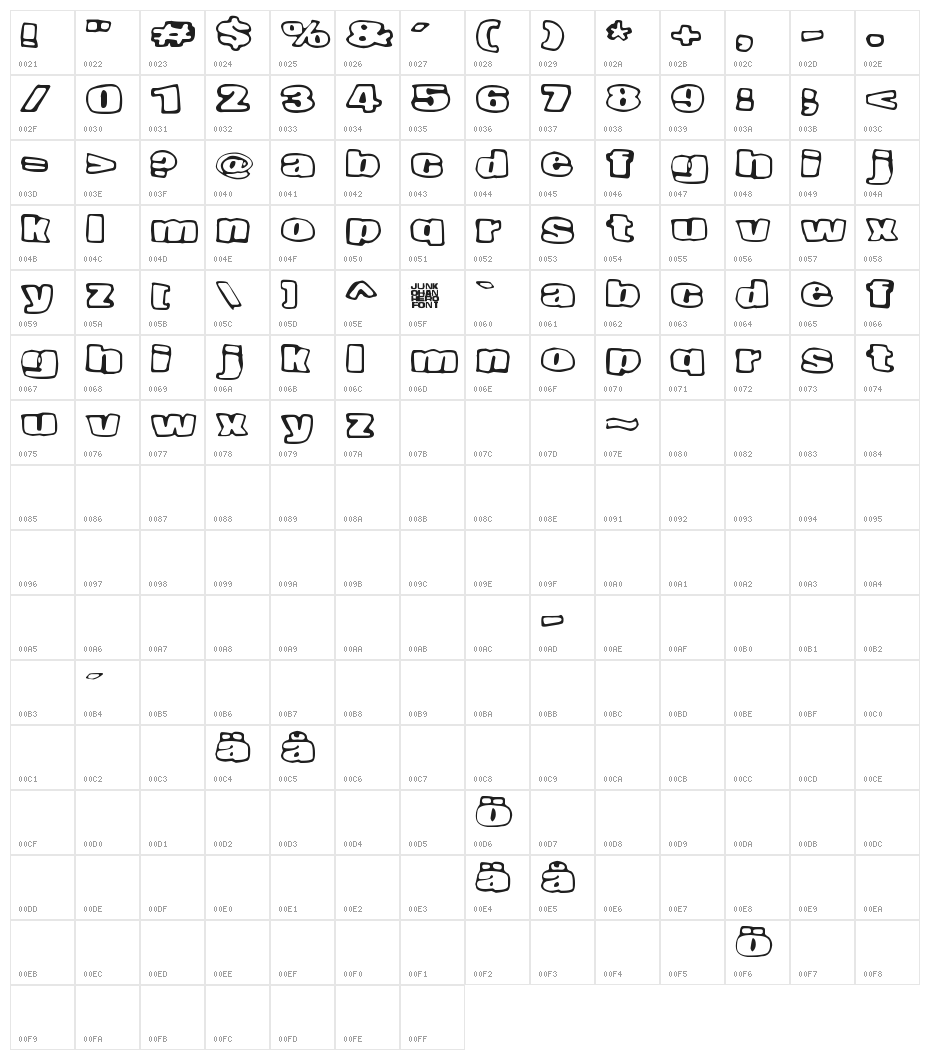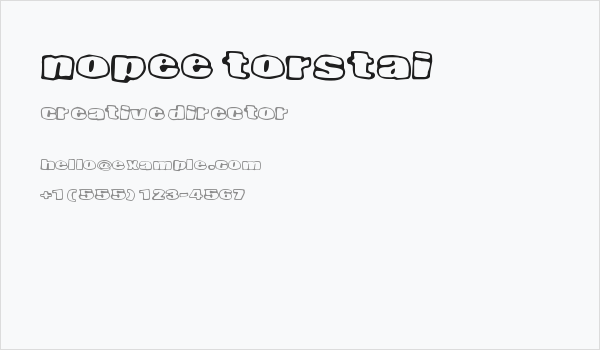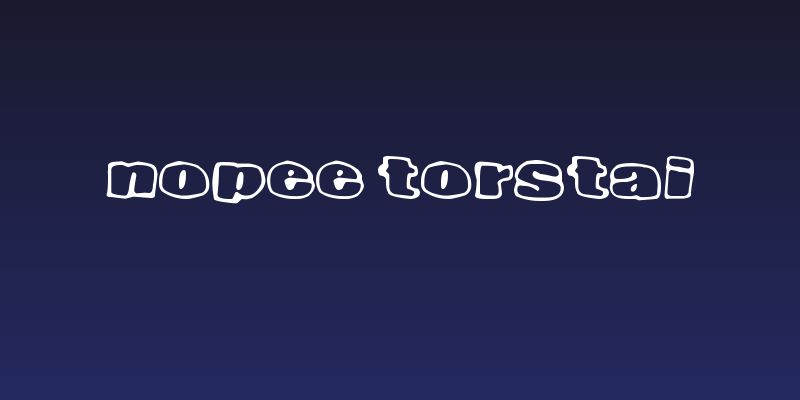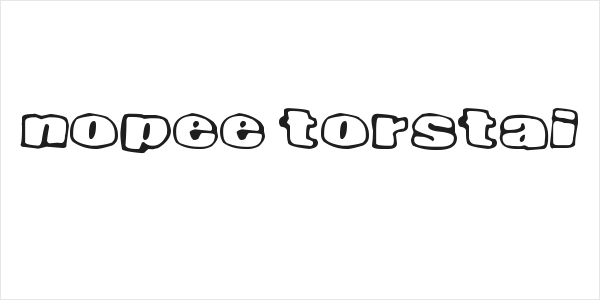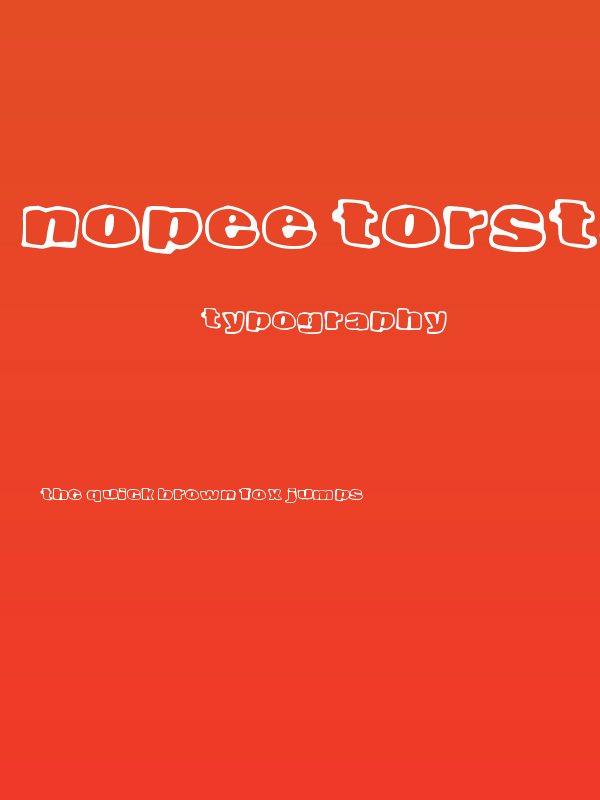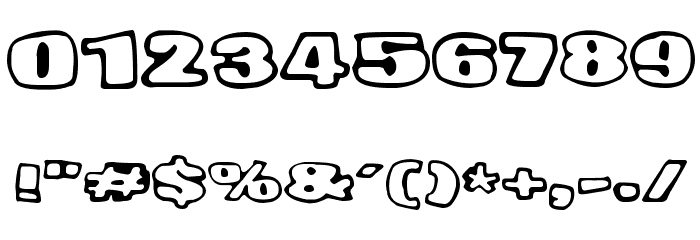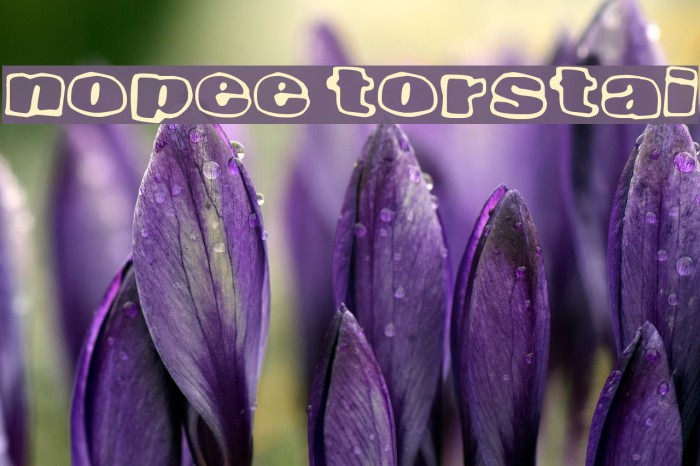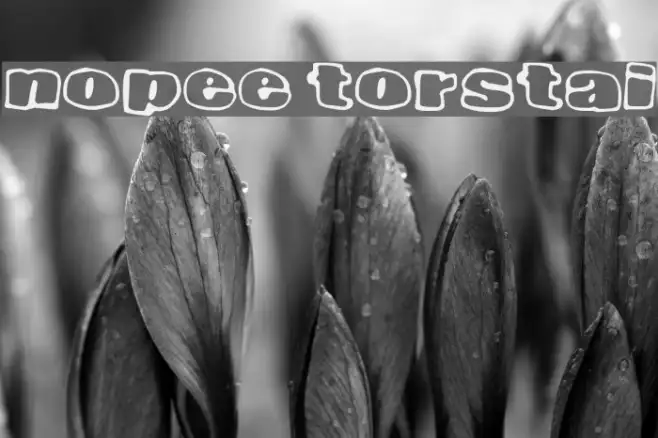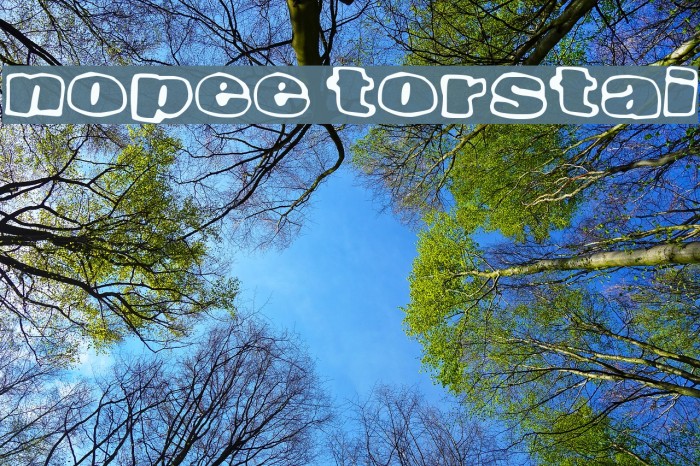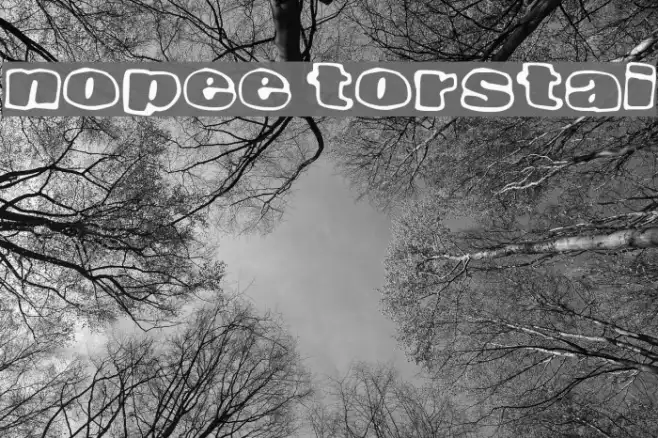
Nopee Torstai Font
Nopee Torstai Description
This font features a playful and bold style with a thick outline that gives each character a bubble-like appearance. The letters are rounded and have a cartoonish quality, making them stand out with a fun and informal vibe. The uppercase and lowercase letters maintain a consistent style, with a slight variation in size and shape to distinguish them. Numbers and special characters are designed to match the overall playful aesthetic, ensuring a cohesive look across all elements. The font's unique style makes it ideal for projects that require a touch of whimsy and creativity.
| Overall Style | Playful, Cartoonish |
| Proposed Projects | Ideal for children's books, comic strips, playful branding, and party invitations. |